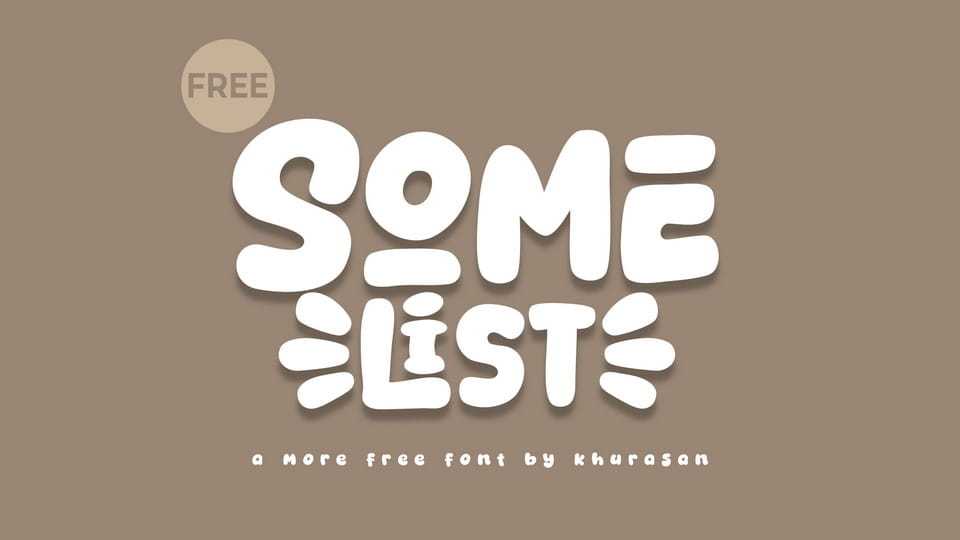
Download Somelist font, a playful display typeface designed with soft, rounded shapes and a friendly personality. Its bold and bubbly letterforms create a cheerful and lighthearted mood, making it perfect for fun and informal designs.